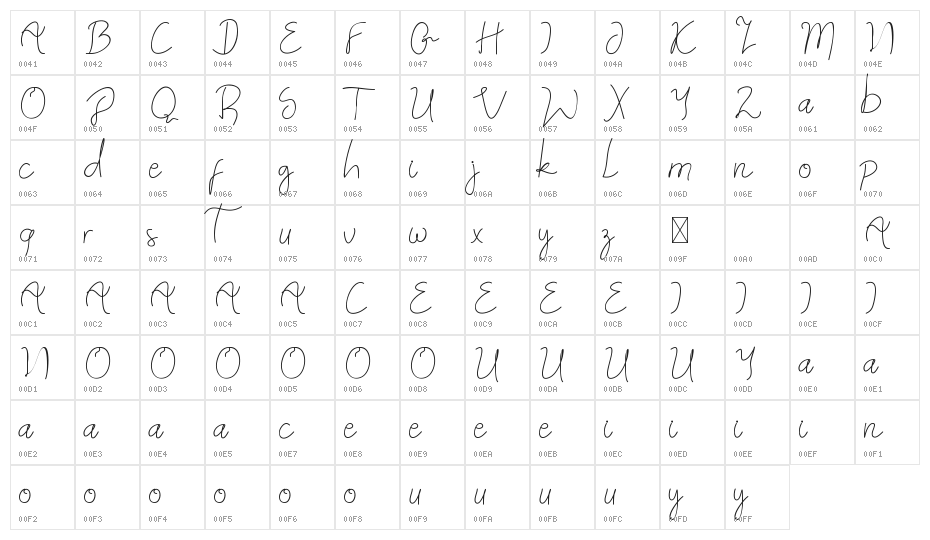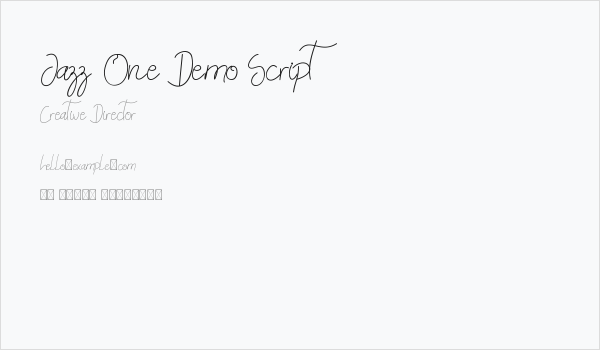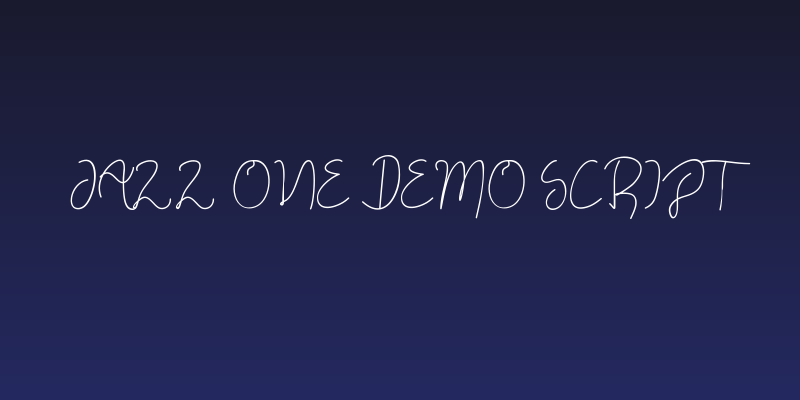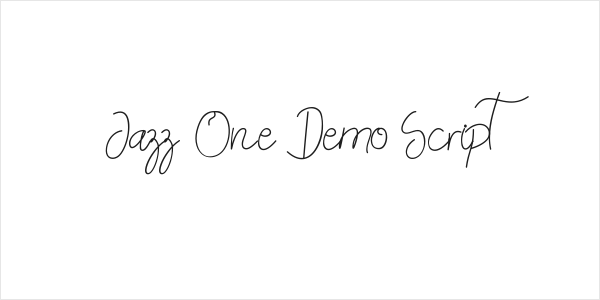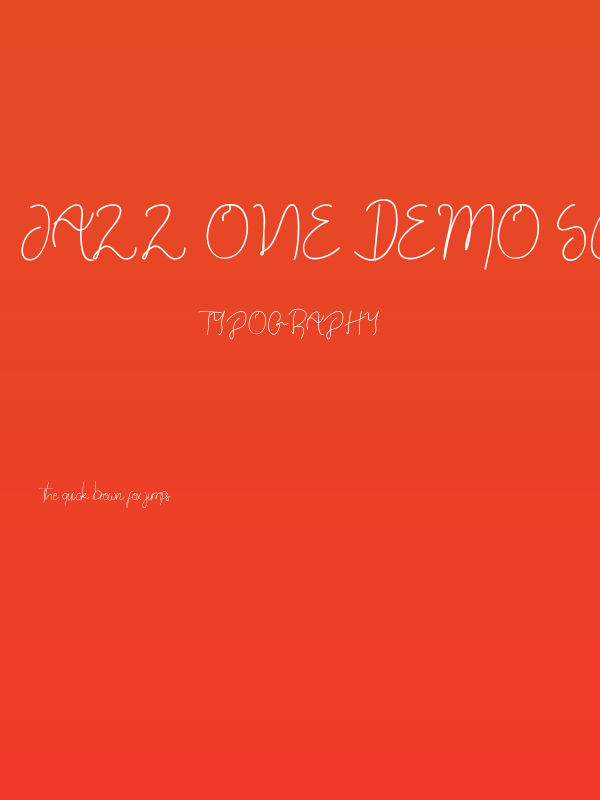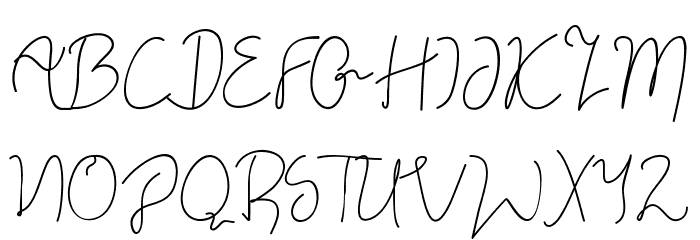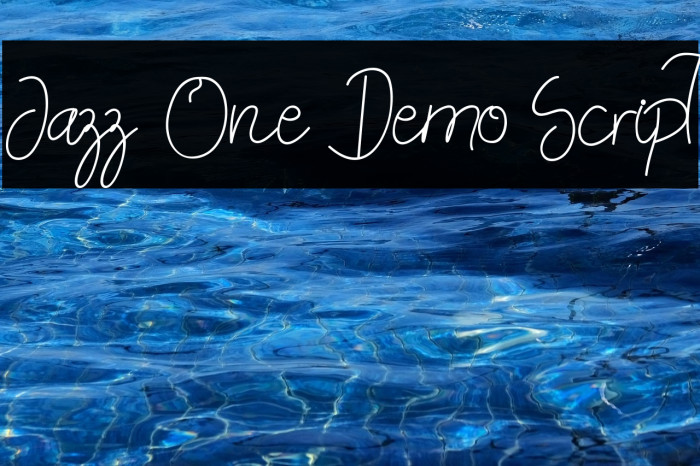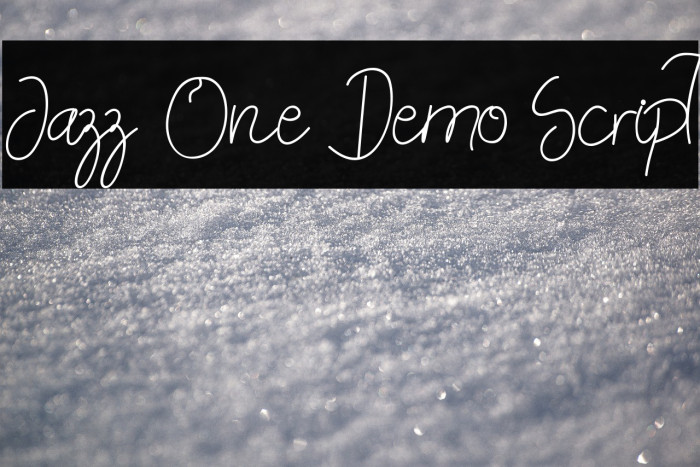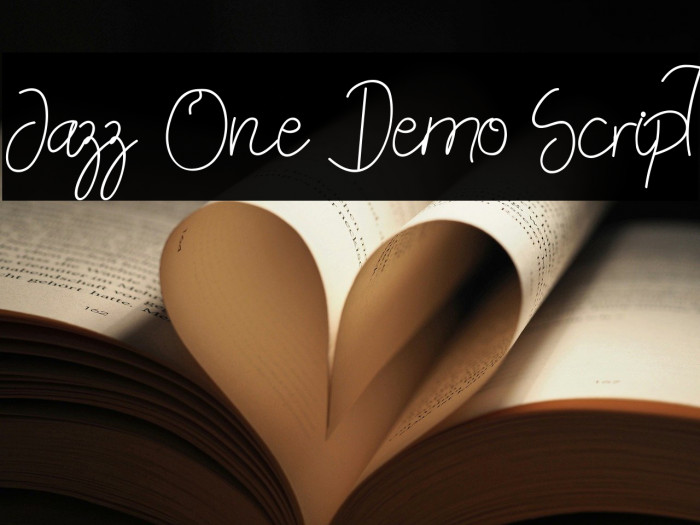
Jazz One Demo Script Font
Jazz One Demo Script Description
This font features a lively and expressive script style, characterized by its fluid and continuous strokes. The uppercase letters exhibit a graceful, flowing design with elegant loops and curves, while the lowercase letters maintain a consistent, connected appearance that enhances readability. The numerals and special characters are crafted with the same attention to detail, ensuring a cohesive look throughout. The overall aesthetic is both artistic and sophisticated, making it suitable for creative and formal applications. Its unique style captures attention and adds a personal touch to any project.
| Proposed Projects | Ideal for wedding invitations, greeting cards, branding, and artistic projects. |